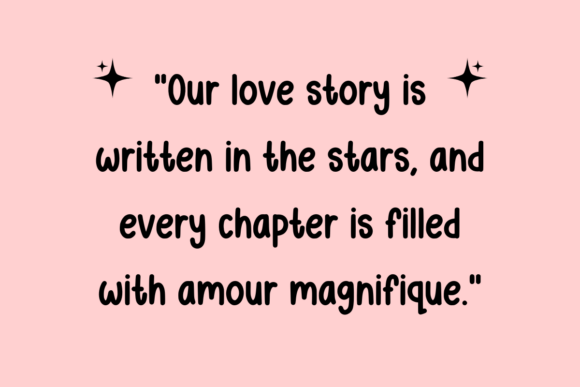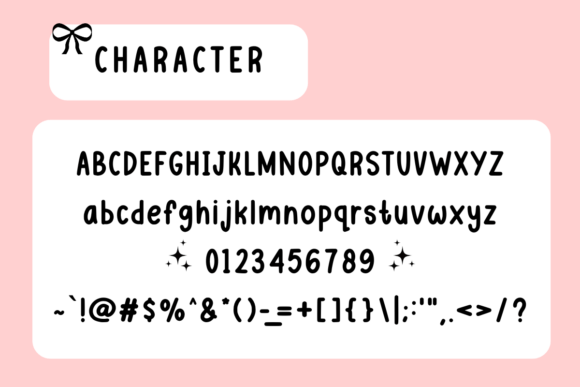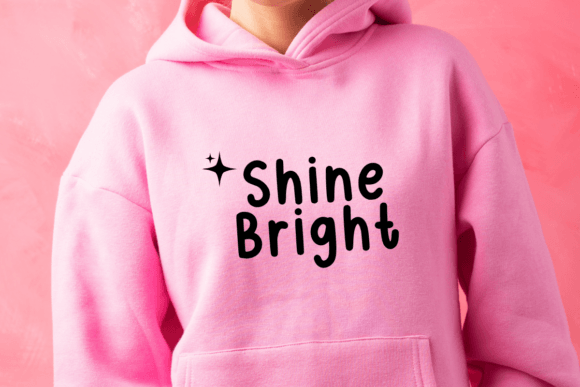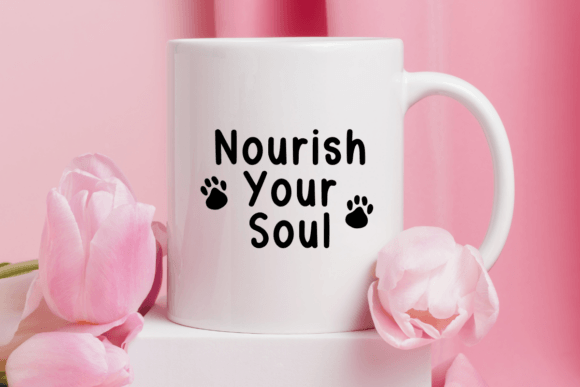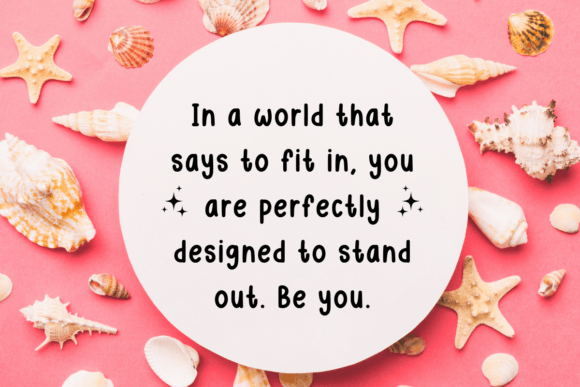
Introducing Amour Magnifique Font: The Ultimate Fun and Cute Handwritten Sans Serif Font
Are you tired of using the same old fonts for your digital designs, crafts, and presentations? Look no further! Amour Magnifique Font is here to revolutionize your typography game with its fun, cute, and handwritten sans serif charm. This versatile font is perfect for a wide range of projects, from greeting cards and invitations to crafty designs and digital art.
What Makes Amour Magnifique Font So Special?
Amour Magnifique Font is a unique and refreshing addition to the world of typography. Its handwritten sans serif design gives it a personal and approachable feel, making it perfect for projects that require a touch of warmth and personality. Whether you’re a designer, crafter, or simply someone who loves to create, this font is sure to become your new go-to.
Endless Possibilities with Amour Magnifique Font
The possibilities are endless when it comes to using Amour Magnifique Font. Here are just a few ideas to get you started:
- Crafts: Use Amour Magnifique Font to add a personal touch to your scrapbooking, journaling, and other paper crafts.
- Digital Design: Add a playful and modern twist to your social media graphics, blog posts, and website designs.
- Presentations: Make your presentations stand out with a font that’s both fun and professional.
- Greeting Cards: Create one-of-a-kind greeting cards for special occasions, such as birthdays, weddings, and holidays.
Why You’ll Love Amour Magnifique Font
So, what sets Amour Magnifique Font apart from other fonts? Here are just a few reasons why you’ll fall in love with this amazing font:
- Unique and Playful Design: Amour Magnifique Font has a one-of-a-kind design that’s sure to turn heads.
- Easy to Read: Despite its playful design, Amour Magnifique Font is easy to read, making it perfect for both digital and print projects.
- Versatile: Use Amour Magnifique Font for a wide range of projects, from formal to informal.
- Fun and Creative: This font is perfect for projects that require a touch of whimsy and creativity.
Tips for Using Amour Magnifique Font
To get the most out of Amour Magnifique Font, here are a few tips to keep in mind:
- Pair it with Other Fonts: Experiment with pairing Amour Magnifique Font with other fonts to create a unique and interesting look.
- Use it for Headings: Amour Magnifique Font is perfect for headings and titles, adding a touch of personality to your designs.
- Experiment with Colors: Try out different colors and color combinations to really make Amour Magnifique Font pop.